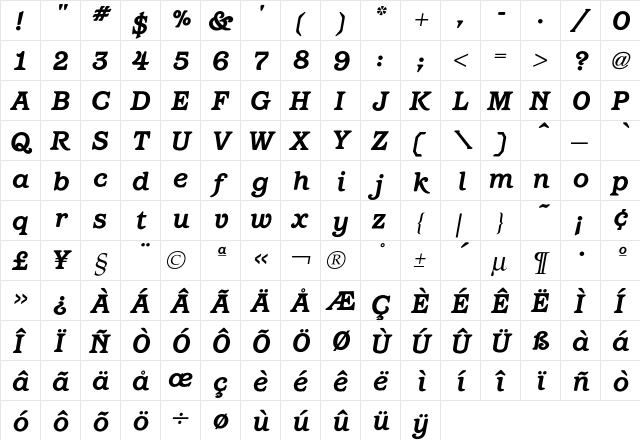
Barcelona BoldItalic
Design Context for Barcelona Typeface
Barcelona is a composed and adaptable typeface that performs quietly and consistently across a wide range of design contexts. The dynamic lean of this cut emphasises speed and emphasis in any layout. The heavy weight commands attention and anchors typographic hierarchies.
Pro Tip: Use Barcelona for emphasis, pull quotes, and subheadings where its slanted energy can add rhythm to the layout.